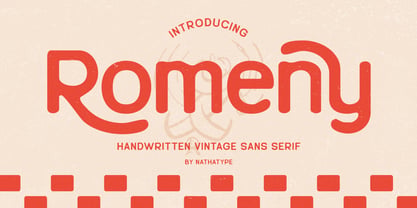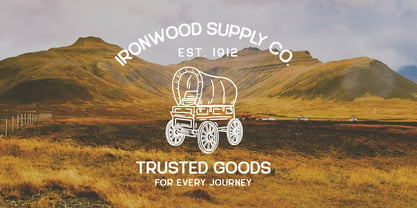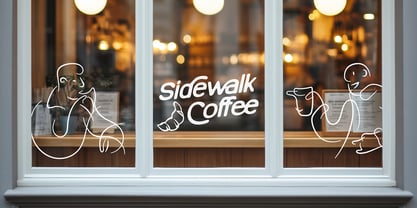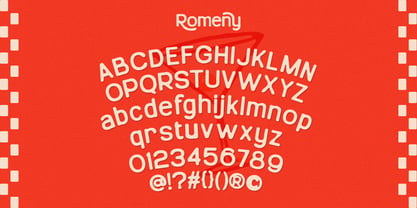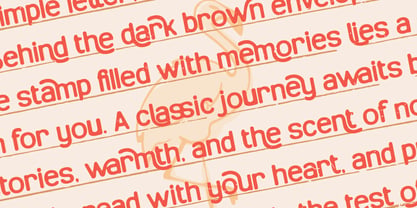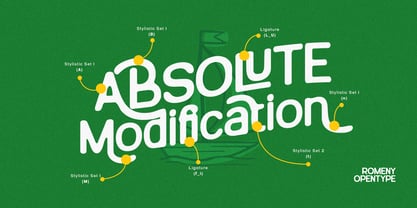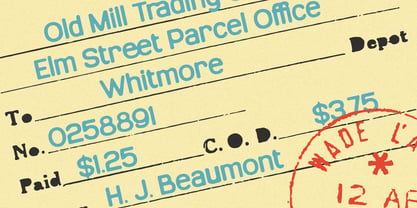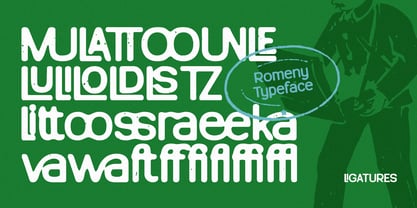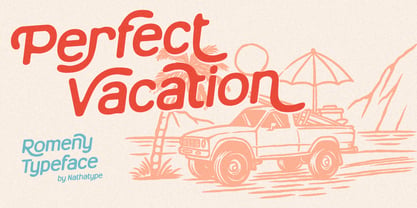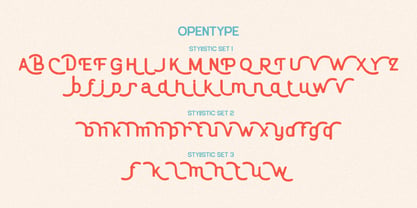
Romeny
by Nathatype
The Romeny Font Family was designed by Donis Miftahudin and published by Nathatype. Romeny contains 1 styles. More about this family
Romeny is a handwritten sans serif font that captures the perfect balance between vintage charm and modern authenticity. Designed with a slight grunge accent, this font brings a handcrafted character to your designs. It also add texture and depth, making your typography look effortlessly classic and unique. Each letter in Romeny is drawn with natural imperfections that mimic real handwriting, giving it a warm and organic feel. In addition, enjoy the features here. Features: Stylistic Sets Multilingual Supports PUA Encoded Numerals and Punctuations Romeny fits in branding, packaging, quotes, invitations, logos, posters, and many more designs. Find out more ways to use this font by taking a look at the font preview. Thanks for purchasing our fonts. Hopefully, you have a great time using our font. Feel free to contact us anytime for further information or when you have trouble with the font. Thanks a lot and happy designing.
Designers: Donis Miftahudin
Foundry: Nathatype